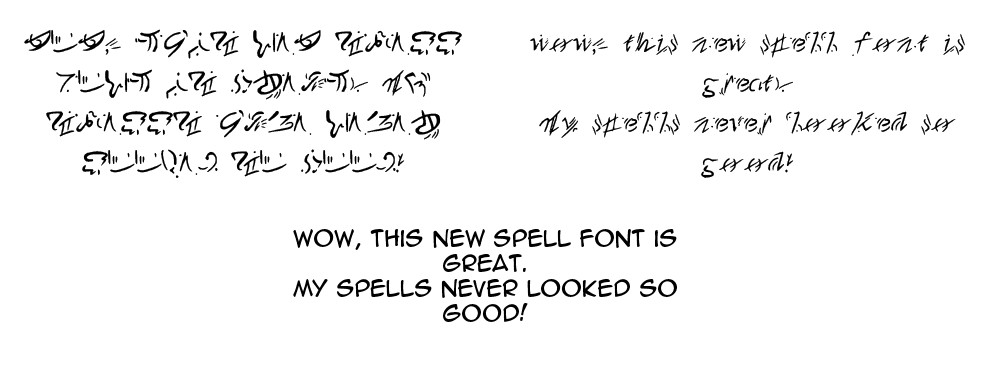
So, after a comment on by about the spell text, I decided that I should make up a font for writting spell lettering.And so, i came up with this
I also made it so the upper-case letters were more arcane looking, and to not look like english letters, (top left) and lowercase looked like english, but in an arcane way. Just about readable (top right) XD
(all three are the same thing,so what is written in animeace at the bottom is what is written in VoAspellfont in both upper case (left) and lower case (right) )
I also used representations in many of the other usable characters, in cluding numbering and < > ?!"£$%^&*()+ etc. which become small arcane symbols, that look similar to the characters on the keyboard.
It was a lot of fun making this, and I will use it in VoA mostly, unless i want to use it in some other fantasy comic
not sure if I will openly release this font out, I'll see how the response is, I guess.
I would very much like to have this font. Was it ever released?
Ohhh, this looks extremely awesome!! Really can pass as an ancient runic magical language, I'd LOVE to find this as a font for my computer! If you ever decide to release, please tell us!! o/ I'll be in line waiting!
Love the left one...it does the trick to look like a magic incantation...xDDD
Heh. So are you going to release the whole alphabet? Hardcore fans love that sort of stuff.
I once found an alt font like this in a PC game (Ultima 7) and I actually learned how to read and write in it. I've since forgotten, though.
you're wow in uppercase reminds me of the kanji for kakashi as it can resemble a face. Hmmm, the possibilities.
sweetness
didn't think to write a pangram?
aside from that, very informative, and fun to have ^^
i could have i guess. Didn't really think of that XDD
if you don't release it I'm going to have to work hard to translate every spell you write in VoA for easter eggs so you should wave me some time and just release it.
Hell, I'd like to use it.
...If I ever made any comics, anyway.
Very nice, but I think the spell 'Avada Kadabra' would be more effective. It cures any illness....
Wish that had been the actual translation though from the recent page of this used. XDD